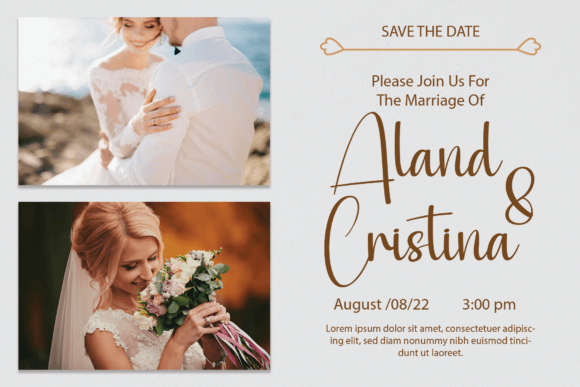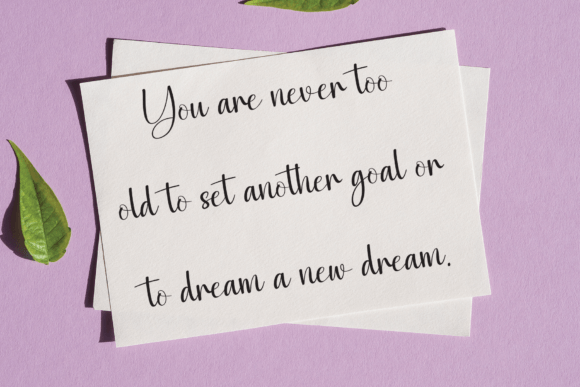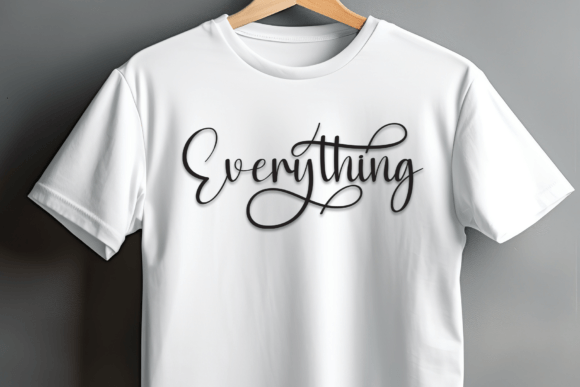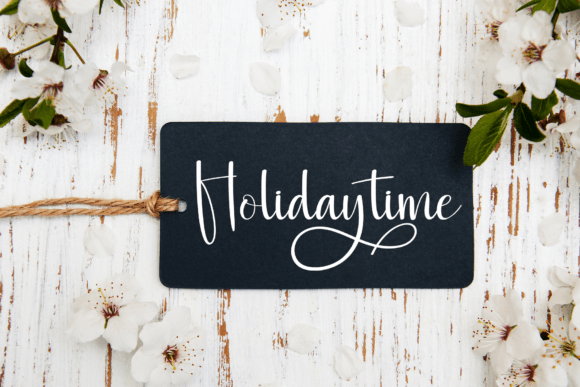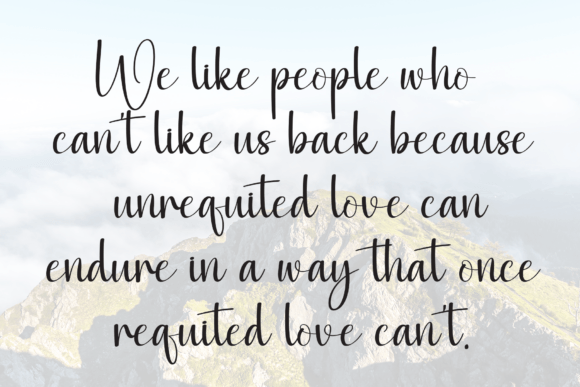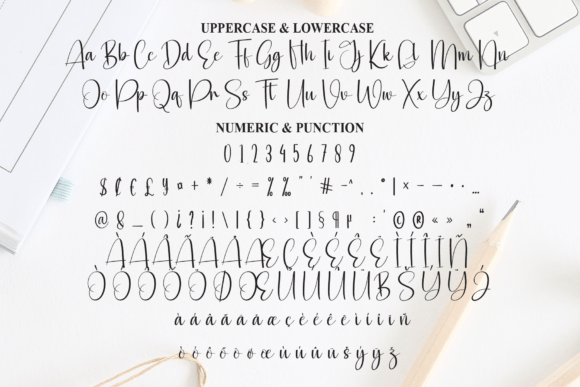
Introducing Autogaphy Font: Elevate Your Designs with Elegant Handwriting
Are you looking for a font that adds a touch of personality and charm to your designs? Look no further than Autogaphy Font, a stylish and flowing script font that mimics the beauty of handwriting. With its elegant and smooth strokes, Autogaphy is perfect for a variety of creative projects, from personal signatures and wedding invitations to branding and advertising materials.
The Beauty of Handwriting-Inspired Typography
Autogaphy Font is designed to capture the essence of handwriting, with flowing connections and subtle variations in line width that give it a natural, organic feel. This font is perfect for designers and crafters who want to add a personal touch to their work, creating a sense of warmth and approachability that digital fonts often lack.
What Makes Autogaphy Font Special?
- Elegant and Smooth: Autogaphy’s smooth strokes and elegant connections make it perfect for designs that require a touch of sophistication.
- Handwriting-Inspired: With its natural flow and subtle imperfections, Autogaphy Font looks like it was written by hand, adding a personal touch to your designs.
- Versatile: Use Autogaphy Font for a variety of projects, from wedding invitations and personal signatures to branding, advertising, and more.
- Easy to Read: Despite its elegant and flowing nature, Autogaphy Font remains highly legible, making it perfect for both digital and print applications.
Perfect for Creative Designs
Autogaphy Font is a versatile font that can be used for a wide range of creative projects. Here are a few ideas to get you started:
- Wedding Invitations: Add a touch of elegance and romance to your wedding invitations with Autogaphy Font.
- Personal Signatures: Use Autogaphy Font to create a unique and stylish personal signature that reflects your personality.
- Branding and Advertising: Add a touch of personality and charm to your branding and advertising materials with Autogaphy Font.
- Stationery and Greeting Cards: Use Autogaphy Font to create beautiful and elegant stationery and greeting cards.
Tips for Using Autogaphy Font
Here are a few tips for getting the most out of Autogaphy Font:
- Use it Sparingly: Autogaphy Font is a statement font, so use it sparingly to add emphasis and personality to your designs.
- Experiment with Colors: Autogaphy Font looks great in a variety of colors, so don’t be afraid to experiment and find the perfect hue for your design.
- Pair it with Other Fonts: Autogaphy Font pairs well with a variety of other fonts, so feel free to experiment and find the perfect combination for your design.
Autogaphy Font is a beautiful and elegant script font that adds a touch of personality and charm to any design. With its smooth strokes, elegant connections, and natural flow, Autogaphy is perfect for designers and crafters who want to create unique and eye-catching designs. Whether you’re looking to create a personal signature, wedding invitation, or branding materials, Autogaphy Font is the perfect choice.